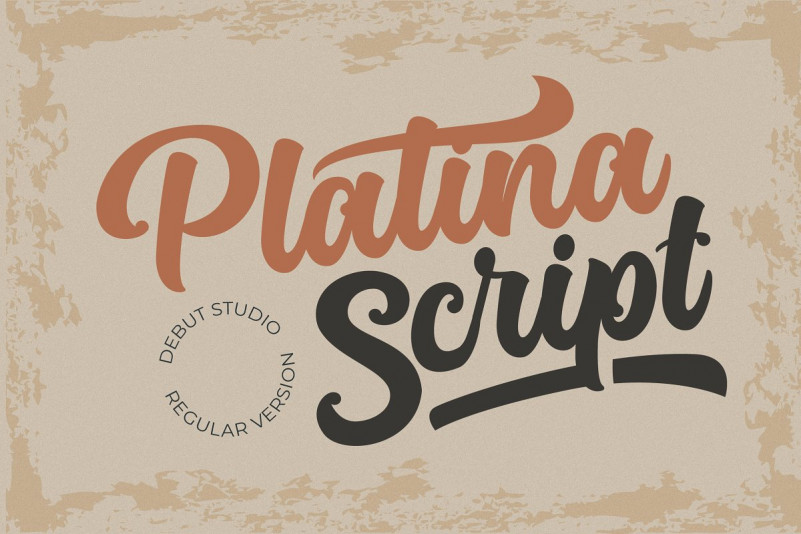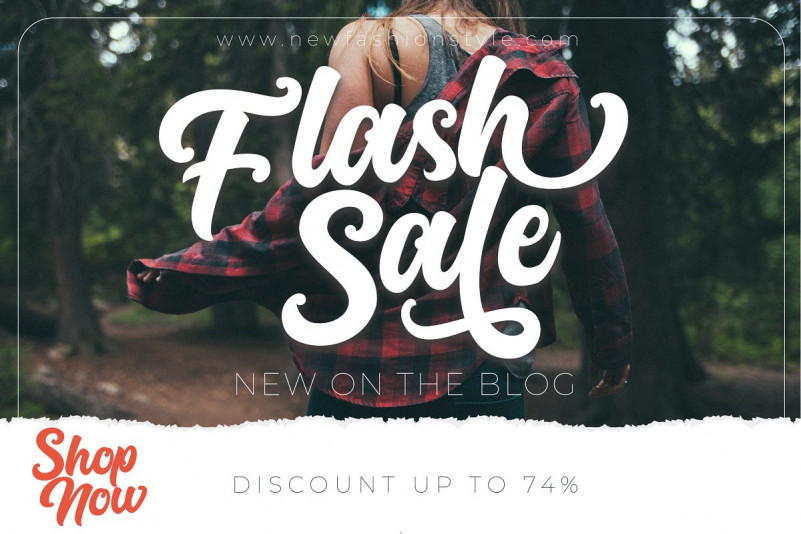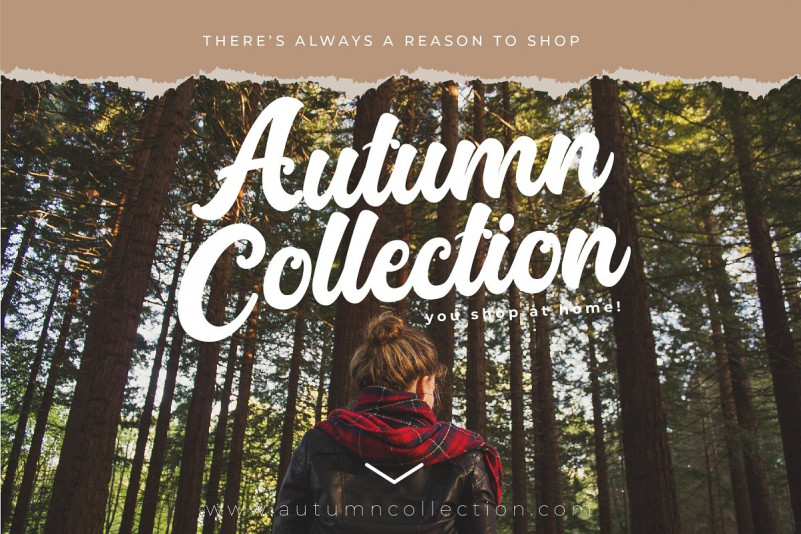
Platina Font
Introducing, our latest stuff, the Platina Script Regular Version. This script is suitable for young, passionate design, such as logo design, t-shirts, branding, and various other design purposes.